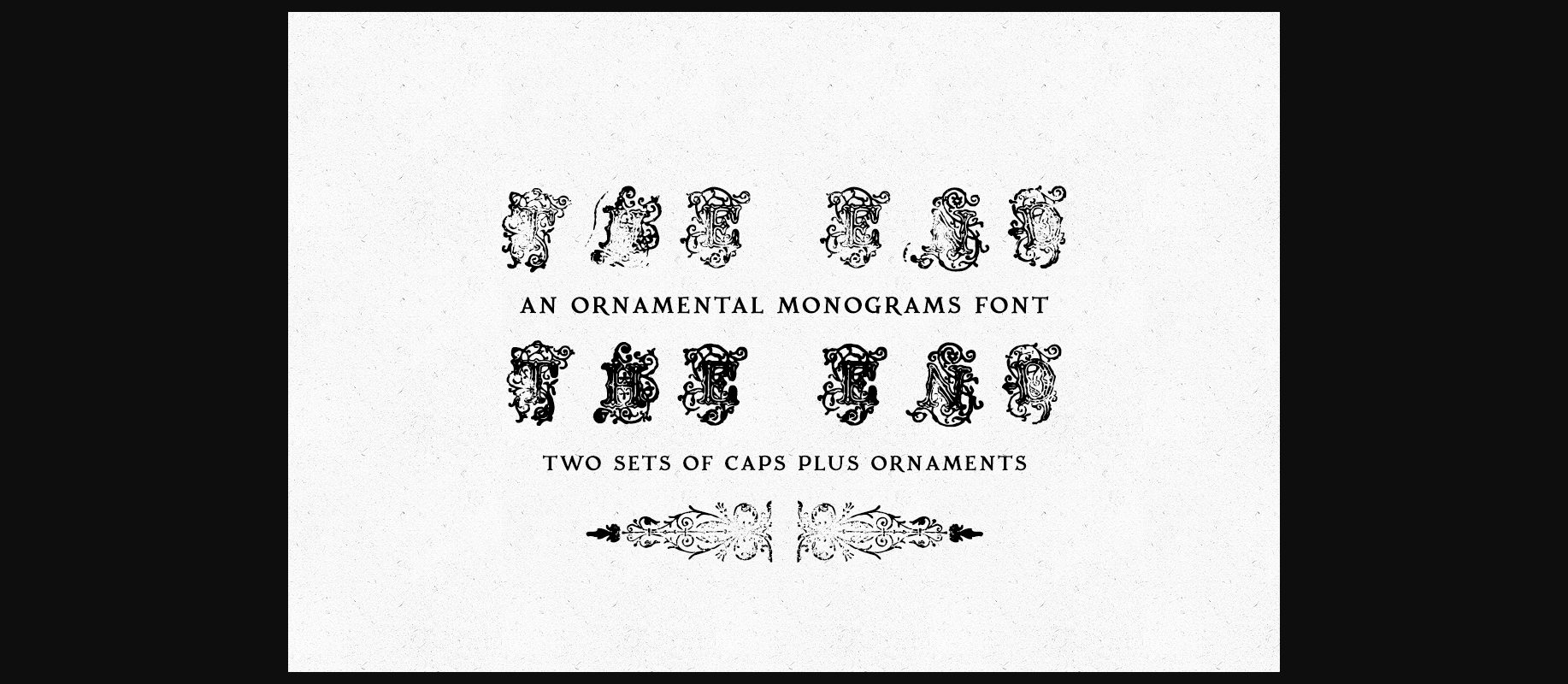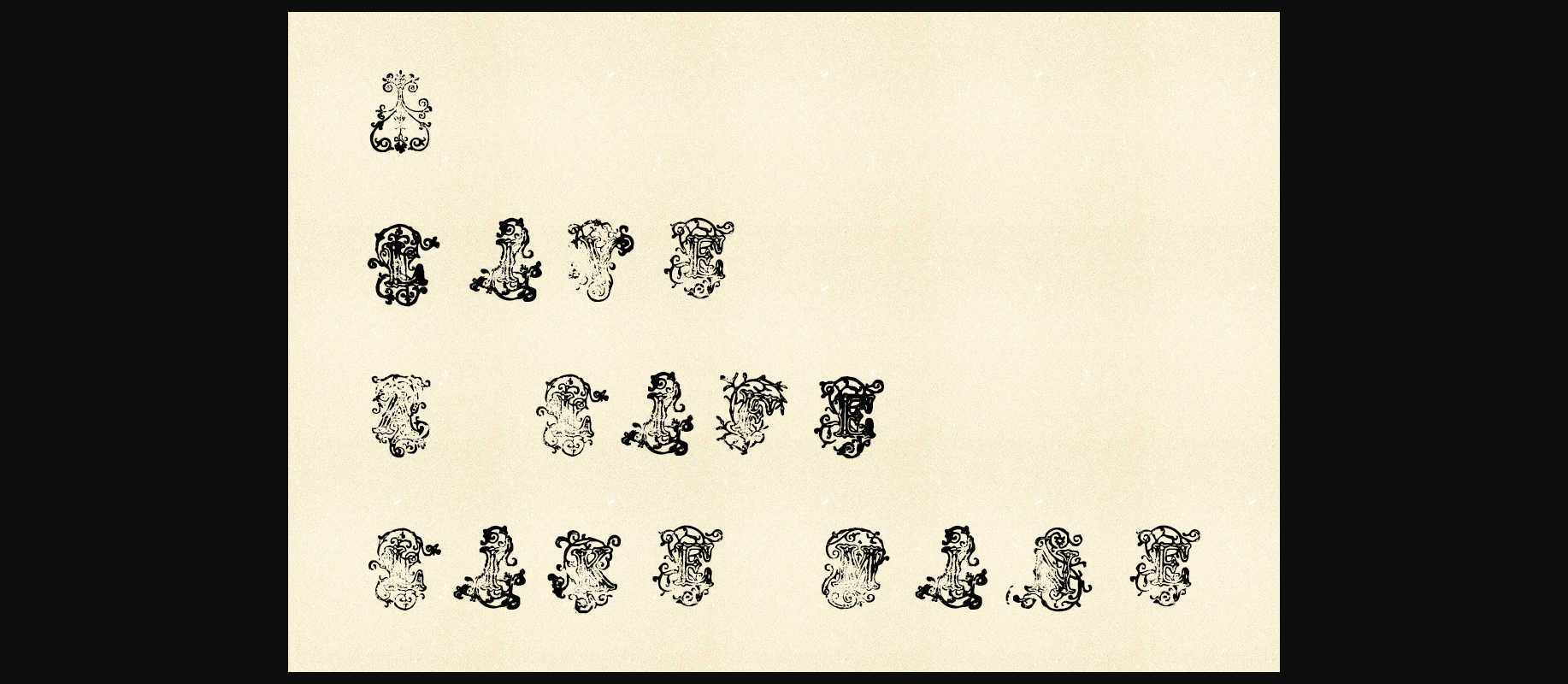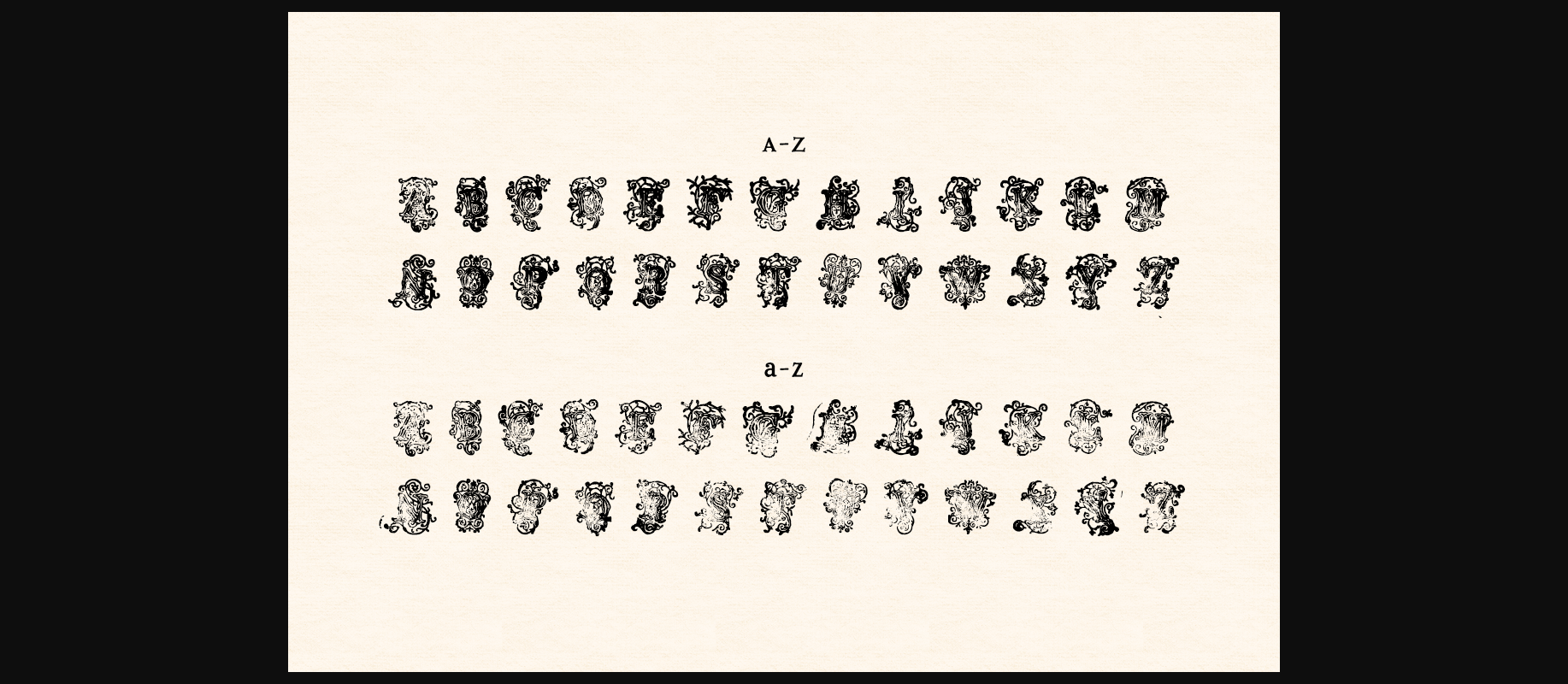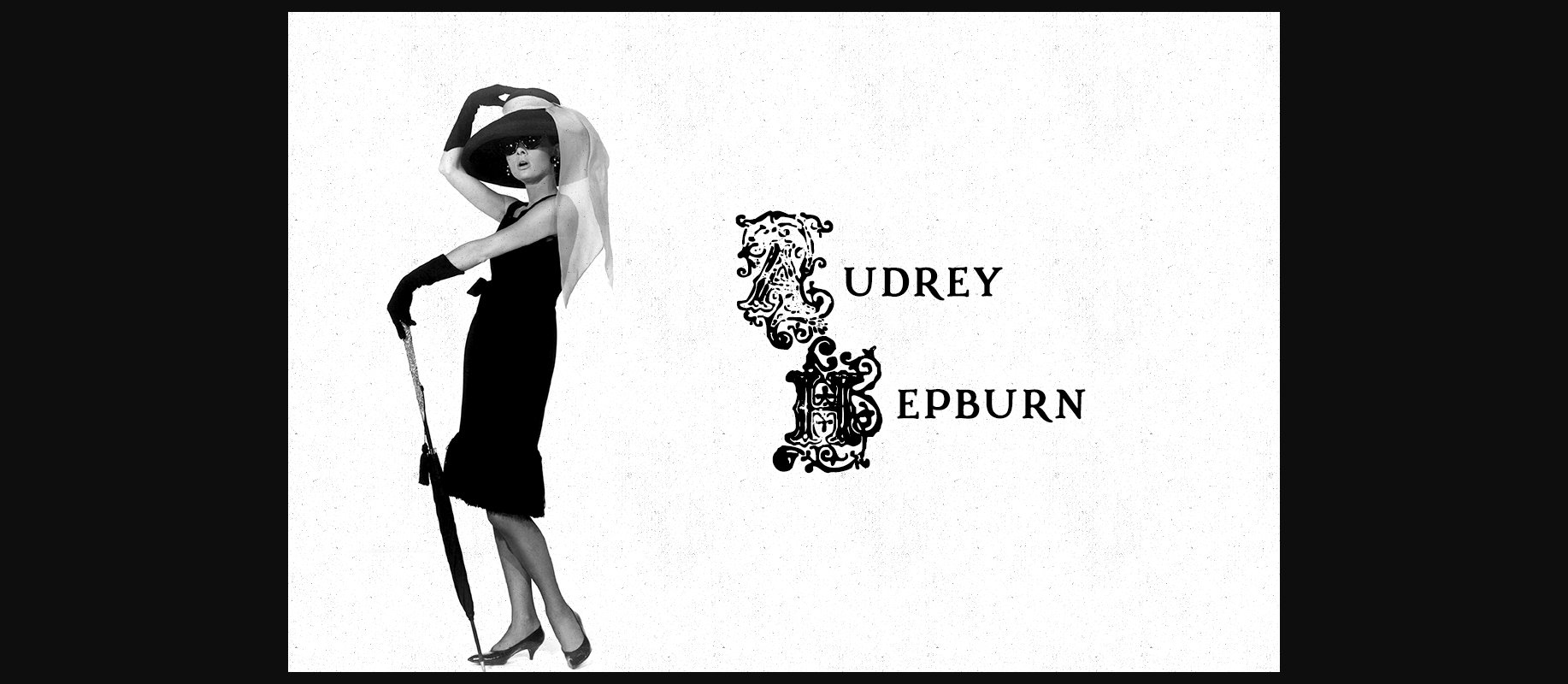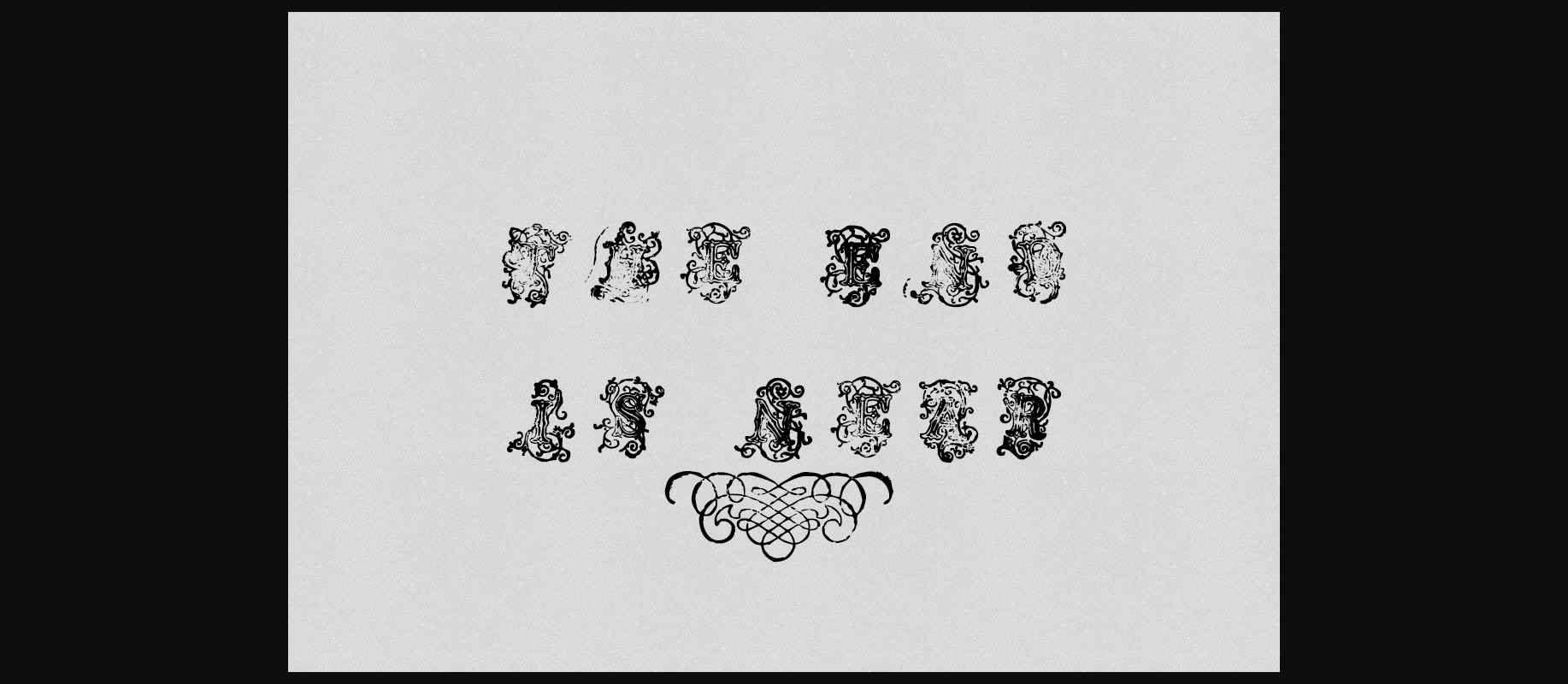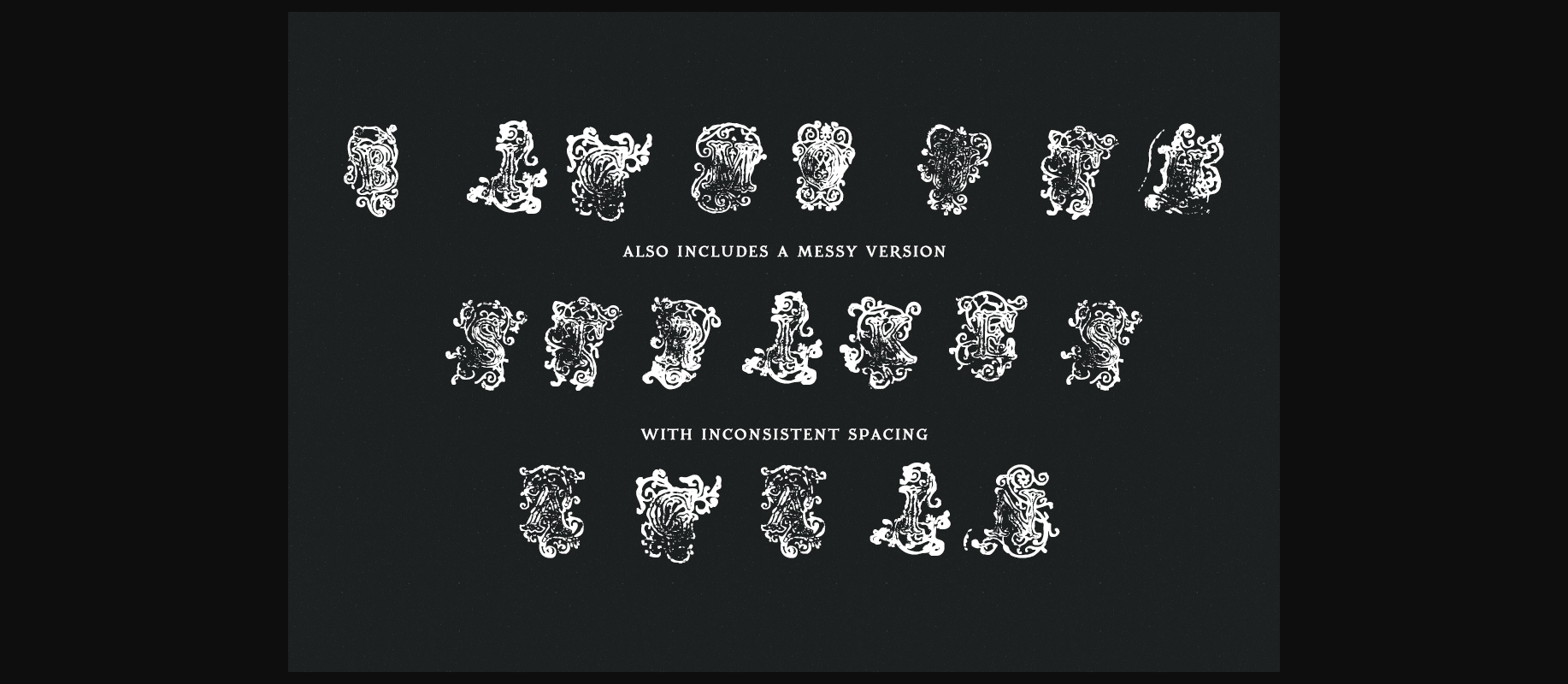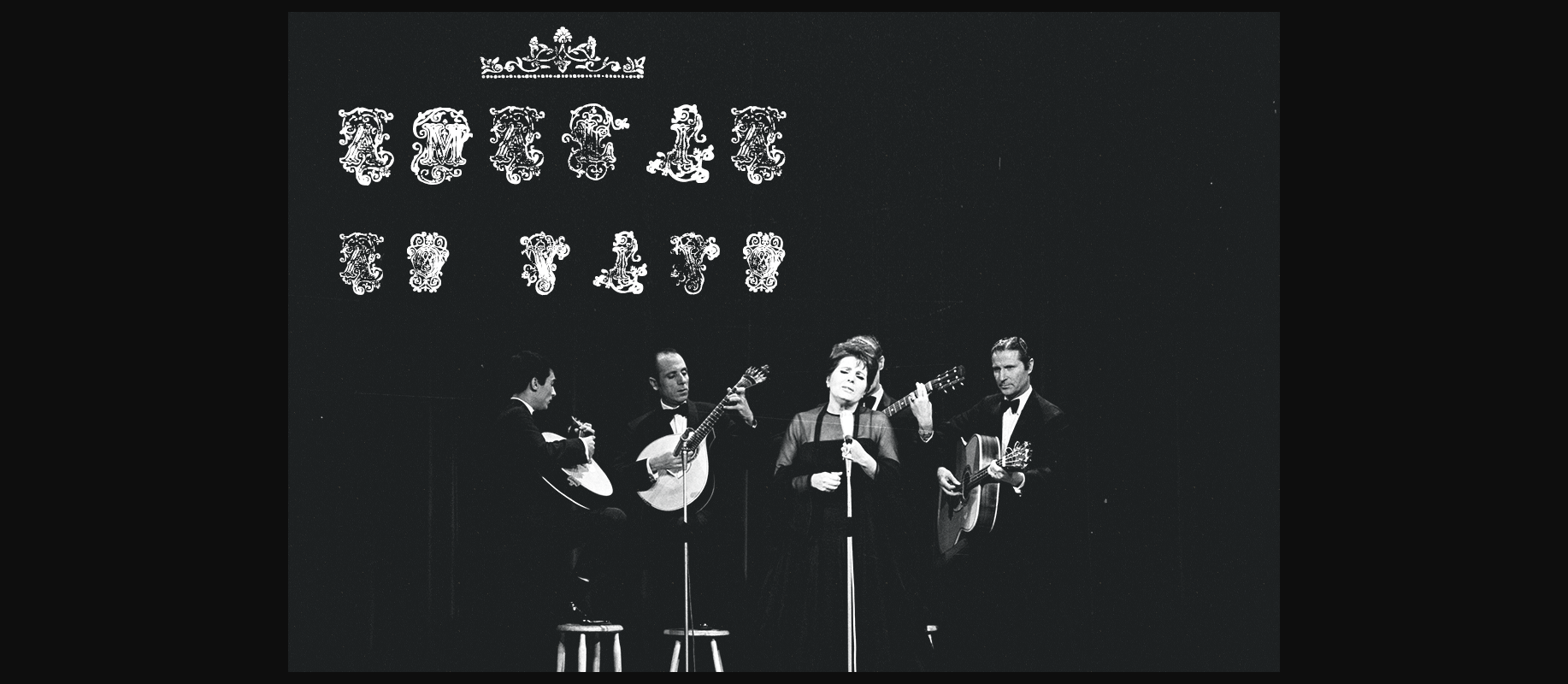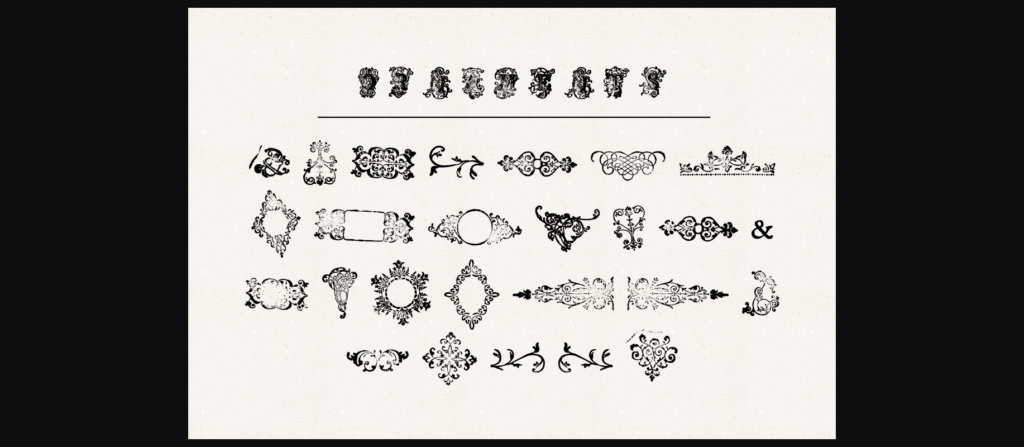
HomeDecorative FontsThe End Font Decorative Fonts The End Font FacebookXPinterestWhatsApp 1 of 10 ... The End Font Poster 2... The End Font Poster 3... The End Font Poster 4... The End Font Poster 5... The End Font Poster 6... The End Font Poster 7... The End Font Poster 8... The End Font Poster 9... The End Font Poster 10... About The End Font The End is a vintage-looking ornamental monogram font made using real rubber stamps. It is a decorative and unique font perfect for retro designs, such as collages, quotes, logotypes and branding, initials and titles. DOWNLOAD NOW People also explored Emelian Font Lattus Brighteny Font Someday Font Ringtone Font Ladybug Font San Francisco Font Castor Broaven Cupcake Ghoul Candy Font 282 0 TagsThe EndThe End Font Previous articleRight Paths FontNext articleWonder Corner Font LEAVE A REPLY Cancel reply Comment: Please enter your comment! Name:* Please enter your name here Email:* You have entered an incorrect email address! Please enter your email address here Website: Save my name, email, and website in this browser for the next time I comment. Personal Use Free Beautiful Personal Use Free Read more about this font Angista Script Personal Use Free Read more about this font Millea Personal Use Free Read more about this font Bethania Personal Use Free Read more about this font BLOG Fonts That Capture the Spirit of New York City New York City is more than just a place—it’s an experience, a rhythm, a visual language... How to Install and Use Fonts on Windows, macOS, and Web Projects Top 7 Google Fonts Alternatives for Faster and Privacy-Friendly Web Design (2025) The 10 Best Handwriting Fonts to Add Personality to Your Designs